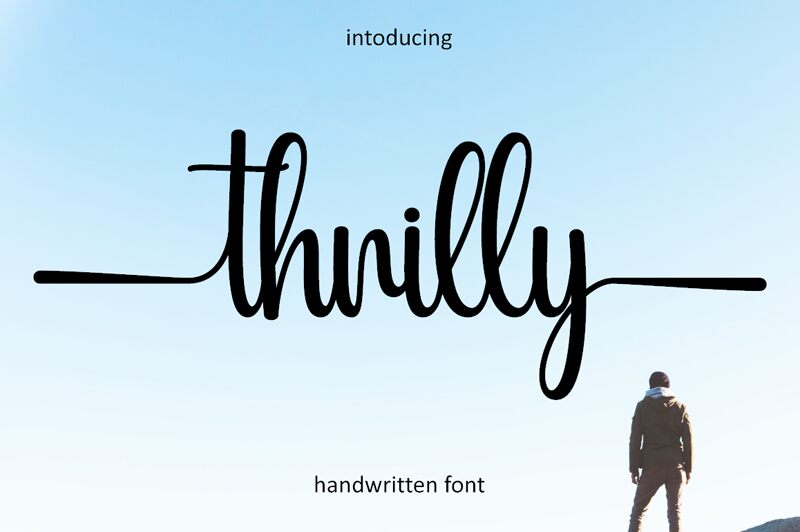
Thrilly
Thrilly, a creation by Hardiboy Design, exudes a personal touch with its handwritten style that feels both intimate and expressive. The font's condensed form enhances its charismatic presence, making each character stand out with an individualistic flair. Its flowing curves and casual elegance suggest a blend of the playful and the sophisticated.
This font is perfectly suited for projects that require a dash of personality without sacrificing readability. From bespoke invitations to branding materials, Thrilly can infuse text with warmth and character. Its distinctive handwritten quality makes it ideal for titles in children's books, creative logos, or any design where a hint of human touch adds value and charm.